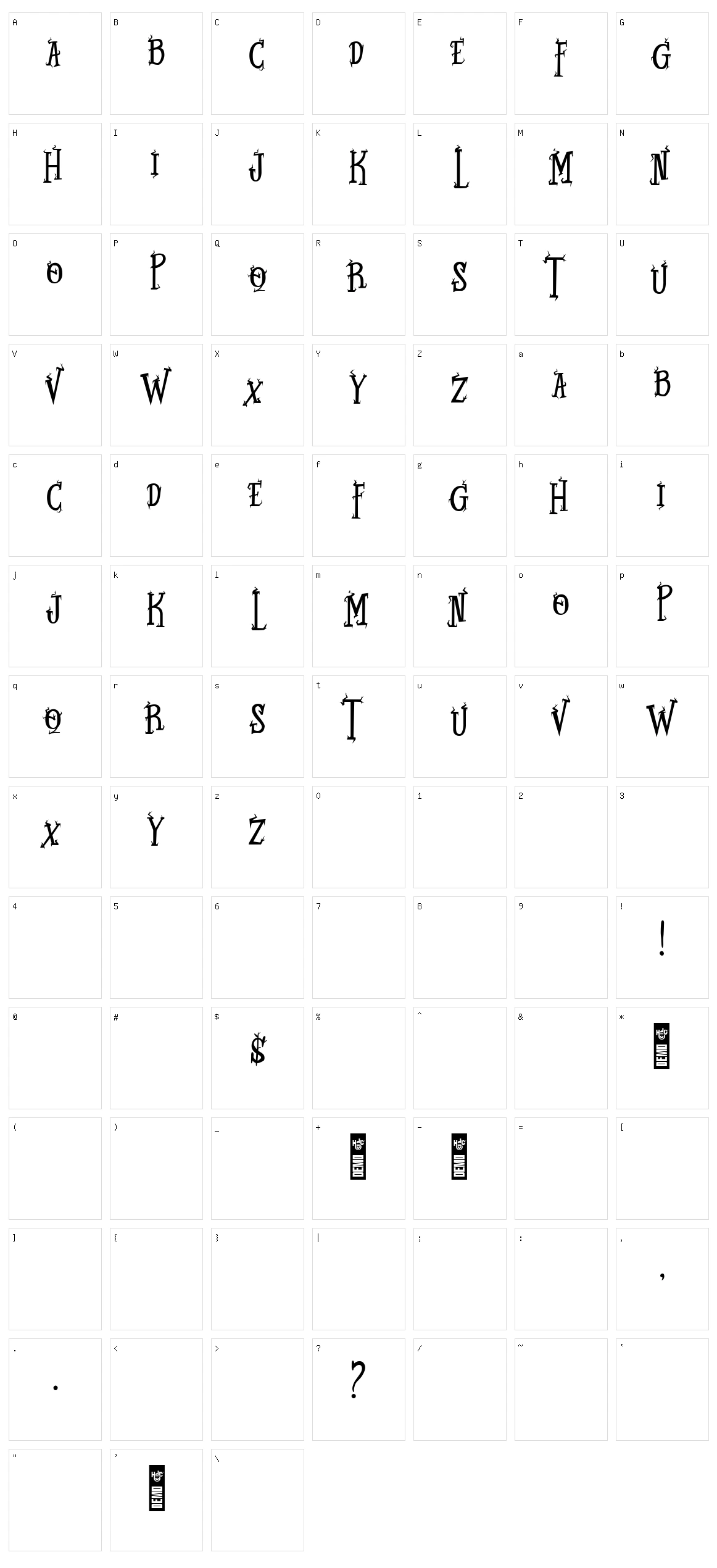
The free font Twig Alleric is carefully designed by Hydric Design, showcasing a thoughtful balance of creativity and usability and falls under the Halloween font style. When you download the ZIP file, it contains only 18.73 KB of font files, making it lightweight and quick to download. Please review the license details below to understand permitted usage and distribution rights. If license information is not available, we recommend using this font for personal projects only or contacting the author directly for commercial usage permissions.